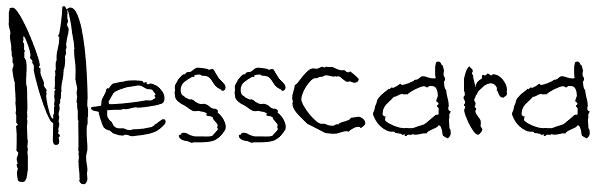
Messcara
Drawn very small with a brush-tipped felt pen, Messcara has qualities of freedom, toughness, with a few girly loops thrown in for good measure. A true handwriting workhorse.
Messcara Font